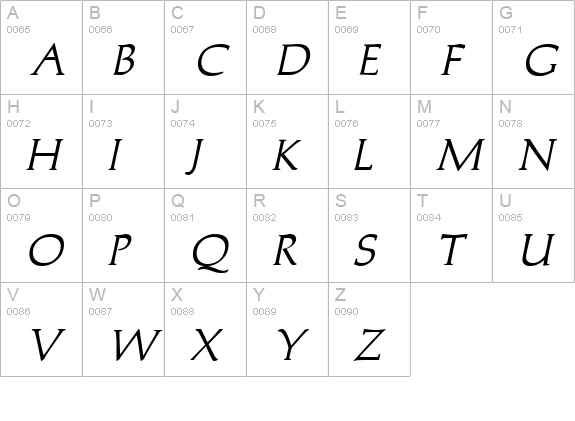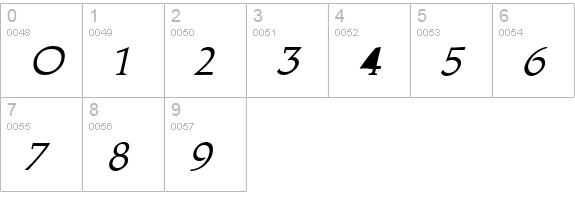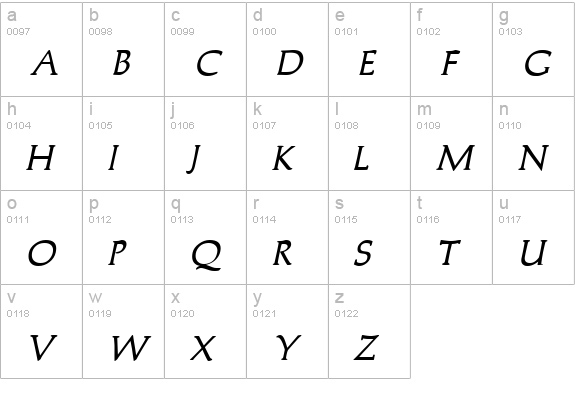
Trajan'sCaps Bold Italic is a strong, high-contrast, italic variant in the Trajan'sCaps typeface family \xE2\x80\x94 well suited to headlines, attention-grabbing titles, and strong calls-to-action.
Trajan'sCaps Bold Italic font is a stunning typeface that exudes elegance and sophistication. With its bold and italic styling, it adds a touch of flair and distinction to any design project. This versatile font is perfect for headlines, titles, logos, and other prominent elements that require attention. The unique blend of boldness and italics in Trajan'sCaps Bold Italic font creates a harmonious balance between strength and grace. Its beautifully crafted letterforms captivate the eye, making it an ideal choice for projects that demand a strong visual impact. One of the best aspects of Trajan'sCaps Bold Italic font is that it is freely available to download. You can easily access this exceptional typeface at FontsMarket.com, a reputable source for high-quality fonts. Whether you are a professional designer or a casual enthusiast, this font gives you the freedom to explore your creativity without any limitations. With its bold strokes, elegant curves, and unique italics, Trajan'sCaps Bold Italic font brings a sense of authority and sophistication to any design. Its versatility makes it suitable for a wide range of applications, from print materials such as posters and brochures to digital projects like websites and social media graphics. Add a touch of class and distinction to your designs with Trajan'sCaps Bold Italic font. Its freely available download option at FontsMarket.com allows you to enhance your creations without breaking the bank. Embrace the freedom of creativity and make a bold statement with this exceptional typeface.